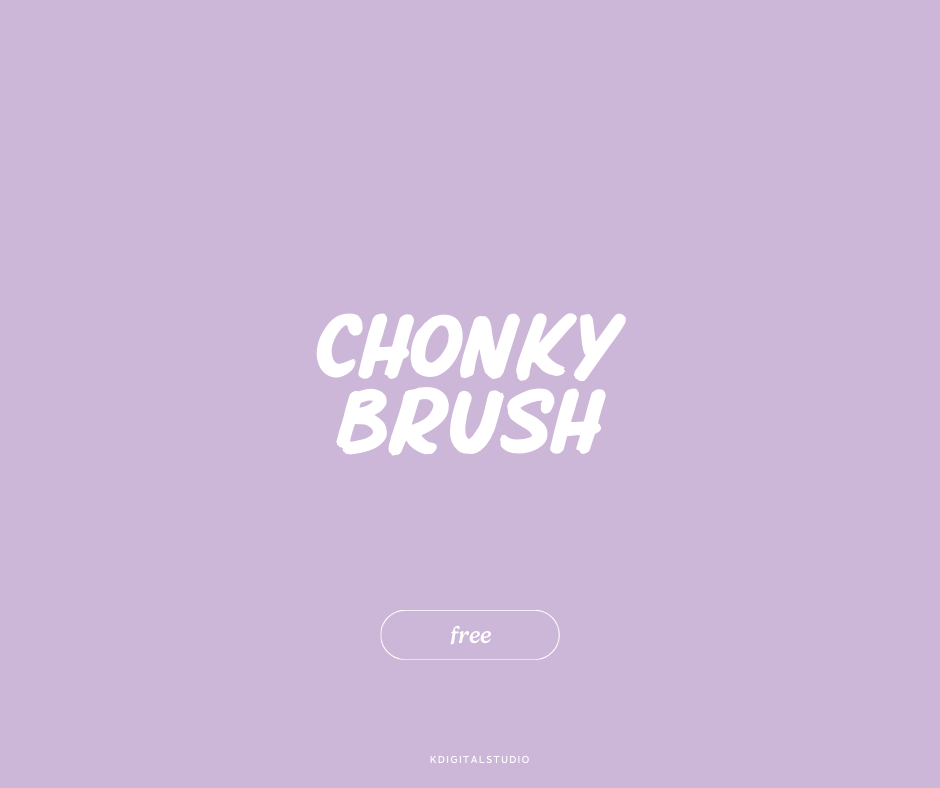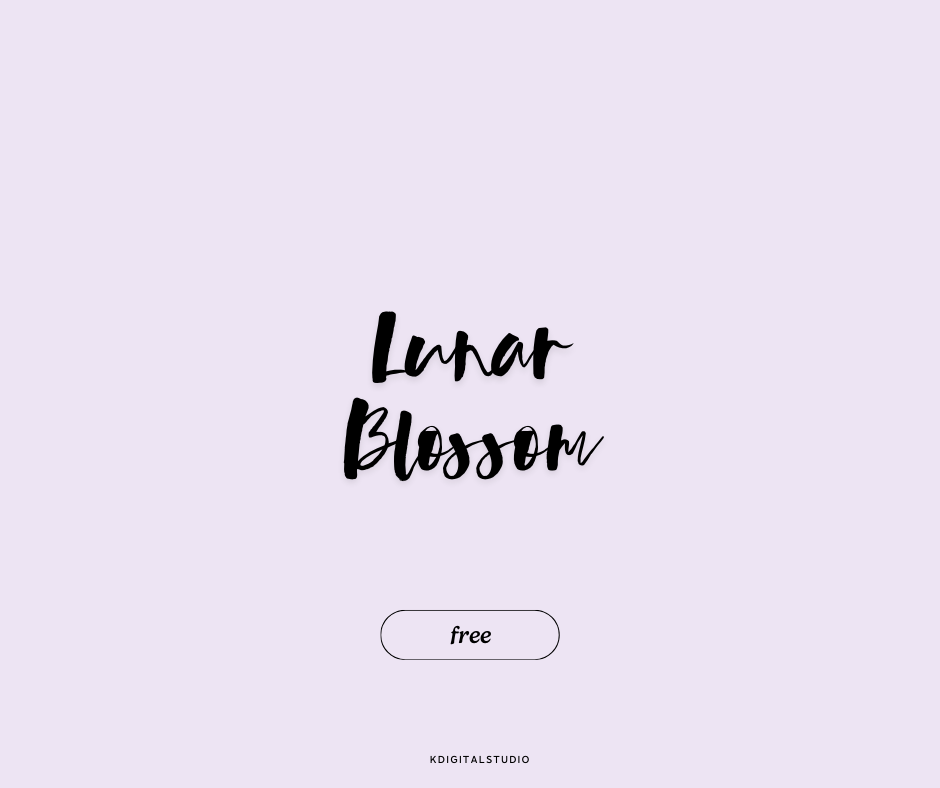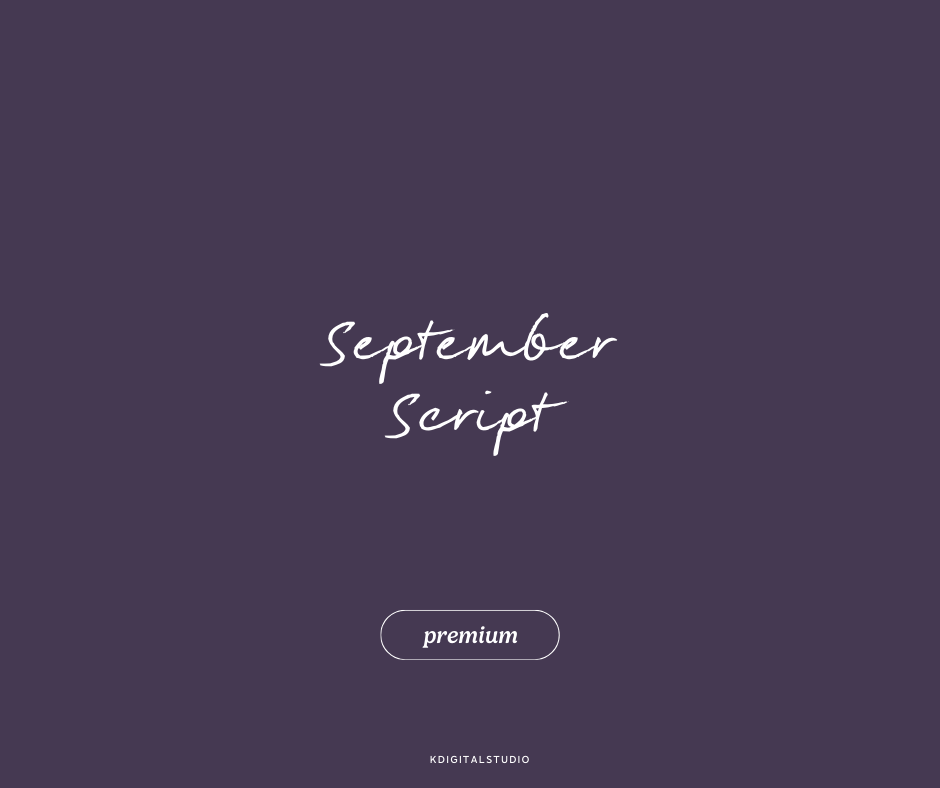
Fonts You Didn't Know You Needed (But Totally Do!)
Fonts do more than just display words—they bring personality, mood, and style to your projects. Whether you’re using them in GoodNotes, Procreate, Canva, or your digital planner, the right font can completely transform your design. And hopefully answer all the questions you have about what fonts I like to use (and where I like to get them)!
I’ve rounded up must-have fonts that deserve a spot in your collection. Some are free, some are premium, but all of them? Absolute gems.
1. Chonky Brush
A bold, playful brush font that brings energy to any design. Great for headers, casual notes, and fun creative projects.
2. Lunar Blossom
A dreamy, hand-lettered script with natural strokes—perfect for journal titles, aesthetic quotes, and mood boards.
3. Scrumptious
Minimal yet elegant, this soft script font adds a delicate, handwritten touch to planners, labels, and lifestyle graphics.
4. Silverwood
Rustic and slightly vintage, this hand-drawn serif works beautifully for cozy, nature-inspired designs and storytelling elements.
5. Sweet Sucker
A chunky, rounded font that has just the right amount of retro flair. If you love groovy designs, this one’s a must.
6. Uberfriends
Tall, playful, and quirky—Uberfriends adds a fun, handwritten touch to your notes, headers, and creative projects.
7. Mellow Morning
Soft, flowy, and effortlessly chic—this modern script is perfect for planners, branding, and digital journaling.
8. Mangrove Sans
A clean, modern sans-serif that pairs well with anything. If you love minimal aesthetics, this one is a staple.
9. Morning Memories
A beautiful mix of bold serif and handwritten script, making it ideal for aesthetic notes, headers, and scrapbook-style journaling.
10. Rose Avenue
This rounded serif font is warm, inviting, and perfect for cozy, minimalist layouts.
11. September Script
A natural, handwritten-style font that feels effortless and stylish. Perfect for casual yet elegant designs.
12. Two Sugars
A smooth, balanced handwritten script that feels just like writing in your favorite journal. Ideal for notes, planners, and quotes. This is one my favorites that I use often in rotation!
13. Wicked Hearts
A bold, vintage-inspired serif font with a hint of retro charm—perfect for adding personality to any design.